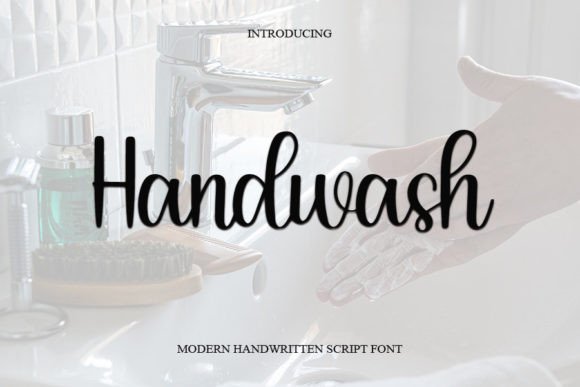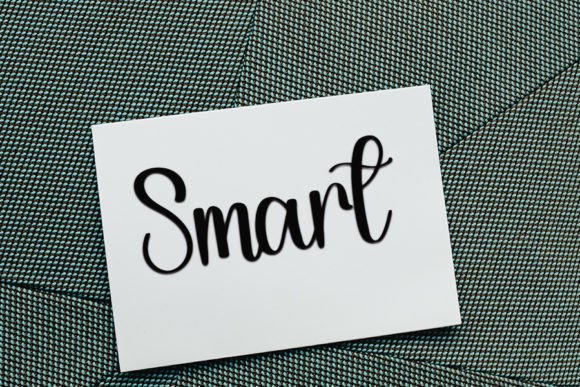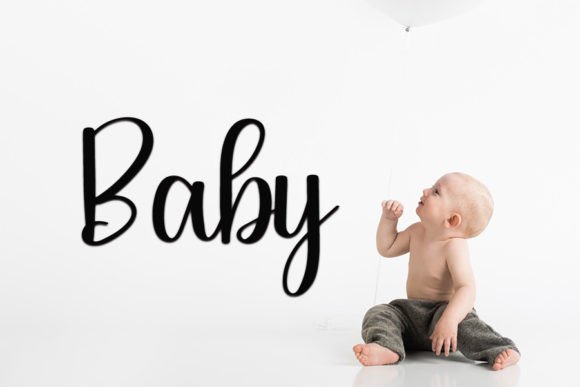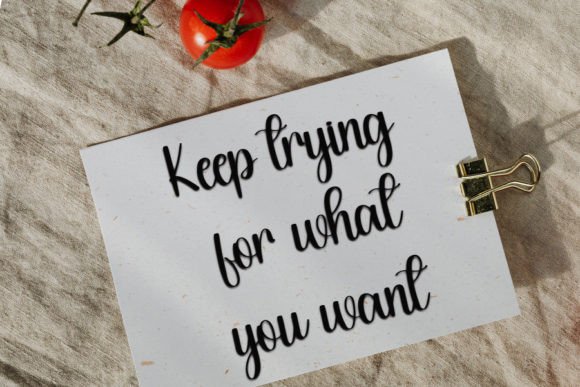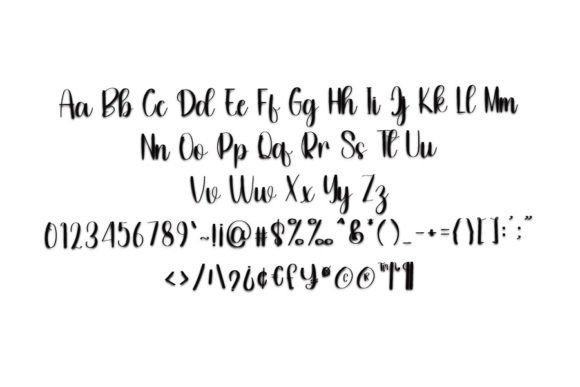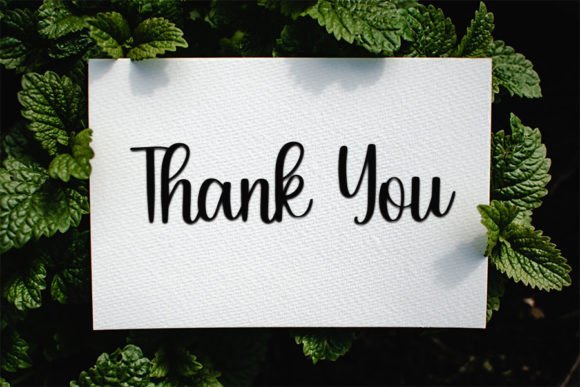
Unleash Your Creativity with the Handwash Font
Have you ever been in the midst of a design project, staring at a blank page, waiting for that perfect font to spark your creativity? For many designers, that moment of inspiration is all it takes to bring a concept to life. And for those who have discovered it, the Handwash Font is a game-changer.
This elegant handwritten font is designed to add a touch of sophistication and whimsy to your designs. With its distinct and timeless style, Handwash Font is perfect for a wide range of projects, from invitations and greeting cards to branding and advertising materials. Whether you’re a seasoned designer or just starting out, Handwash Font is a valuable addition to your toolkit, offering endless possibilities for creative expression.
Handwash Font Key Features
- Unique Characteristics: Handwash Font is designed to resemble handwritten text, with a unique and personalized feel that’s perfect for creative projects and branding.
- Script and Regular Styles: The font comes in two styles: Script and Regular, allowing users to choose the perfect look for their project.
Designer Review: Handwash Font
Overall, I’m impressed with the unique and playful personality of Handwash Font. It’s perfect for creative projects that need a touch of whimsy. ✨ The rounded edges and soft curves make it an excellent choice for branding, signage, or any material where you want to convey a sense of approachability and friendliness.
Some of the strengths of Handwash Font include:
- Perfect for informal and casual projects where you want to create a sense of warmth and comfort
- Great for use in digital and print materials, such as social media graphics, posters, and flyers
- Highly legible, making it suitable for body text and headings
- Easy to read at various sizes, from large display text to small body text
- May not be suitable for formal or professional projects where a more serious tone is required ⚠️
- Could be challenging to use in situations where you need a very large or very small font size, as the rounded edges may become distorted
Overall, I think Handwash Font is a great choice for designers who want to add a playful touch to their projects. While it may not be suitable for every situation, it’s an excellent addition to any designer’s toolkit.
The Handwash font is ideal for creative projects, such as:
- Crafting and DIY projects
For the best results, pair the Handwash font with bold, playful graphics and colors.
Alternatives to Handwash Font for Designers
Playfair Display is an elegant, high-end serif font suitable for headings, titles, and luxury brands. It features intricate details and connections between letters. Use it for formal and sophisticated designs, such as wedding invitations, luxury product packaging, and high-end fashion branding.
Compared to Handwash Font, Playfair Display is more formal and luxurious, with a greater emphasis on detail and sophistication. While Handwash Font has a vintage feel, Playfair Display is more traditional and classic.
Great Vibes is a beautiful, elegant script font ideal for creative and artistic designs. It features flowing connections and a sense of movement. Use it for invitations, greeting cards, and branding for creative industries like art, music, or design.
Compared to Handwash Font, Great Vibes is more fluid and expressive, with a greater emphasis on movement and connection. While Handwash Font has a more rustic feel, Great Vibes is more refined and sophisticated.